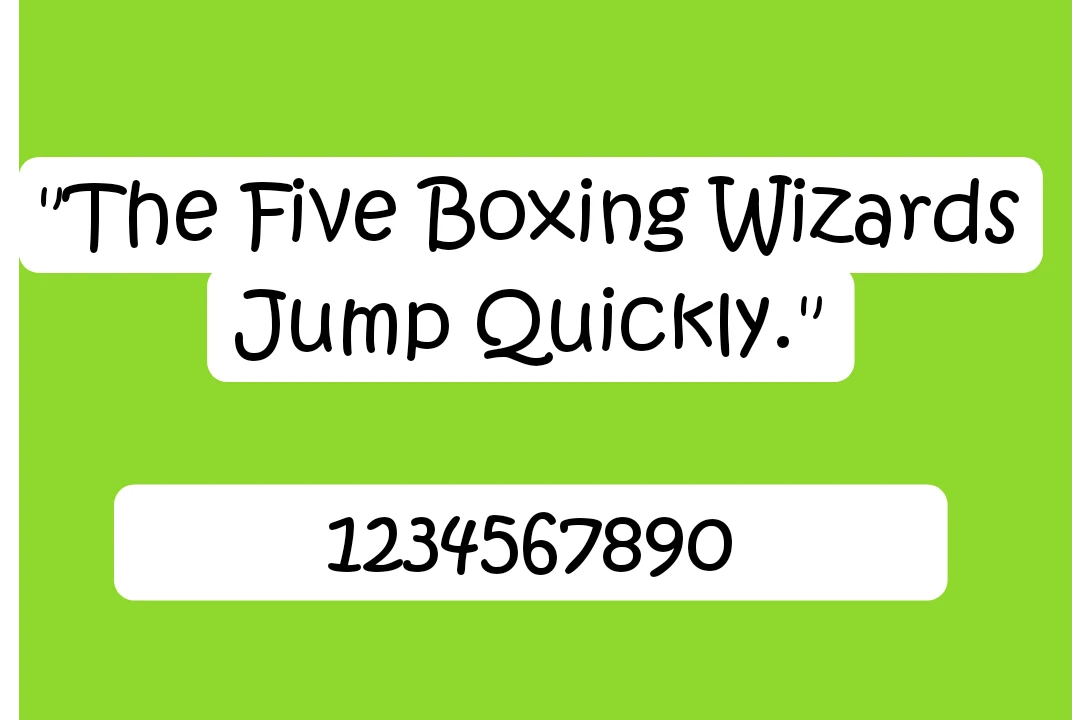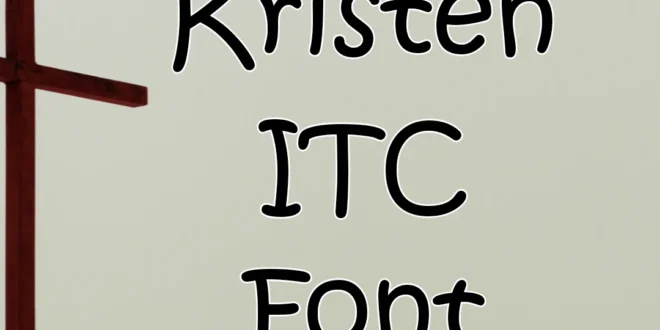
Kristen ITC Font is a playful and friendly script font designed by Tony DeMarco and released by International Type Corporation (ITC).
It was first introduced in 1995 and has since become popular for its casual, handwritten style that adds a light-hearted, approachable touch to any design.
The font features rounded, bouncy letters with a hand-drawn appearance, making it perfect for projects aimed at a younger audience or those that require a fun and informal feel.
Usage of Kristen ITC Font
Kristen ITC includes a wide range of characters, supporting uppercase and lowercase letters, numbers, and punctuation marks, allowing for versatility in various design contexts.
The font is available in regular weight and is widely used in invitations, logos, posters, and children’s materials, where a more relaxed and personal tone is needed.
| Name | Kristen ITC Font |
| Designer | George Ryan |
| Style | Handwritten |